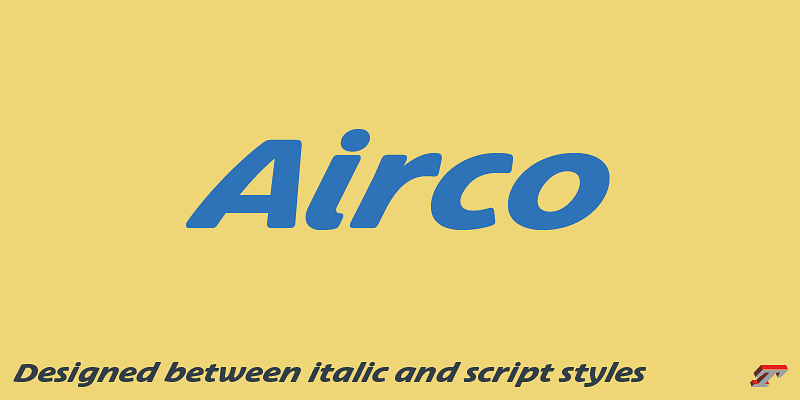
Airco Font Free Download is a clean, sleek, and highly functional sans-serif typeface designed with modern aesthetics and technical precision in mind. With its minimal design and smooth curves, this font is perfect for branding, tech products, UI/UX interfaces, editorial layouts, and corporate communication where clarity and professionalism are key.
Airco Font Free Download stands out for its versatility—offering a balanced mix of geometric structure and humanist warmth. Whether used in body text or bold headlines, it maintains excellent legibility across all screen sizes and print formats. Its neutral tone makes it a great fit for both minimalist branding and futuristic design systems.
Airco’s contemporary styling allows it to pair effortlessly with other fonts, making it a reliable choice for designers seeking flexibility and modern appeal in their typographic toolkit.